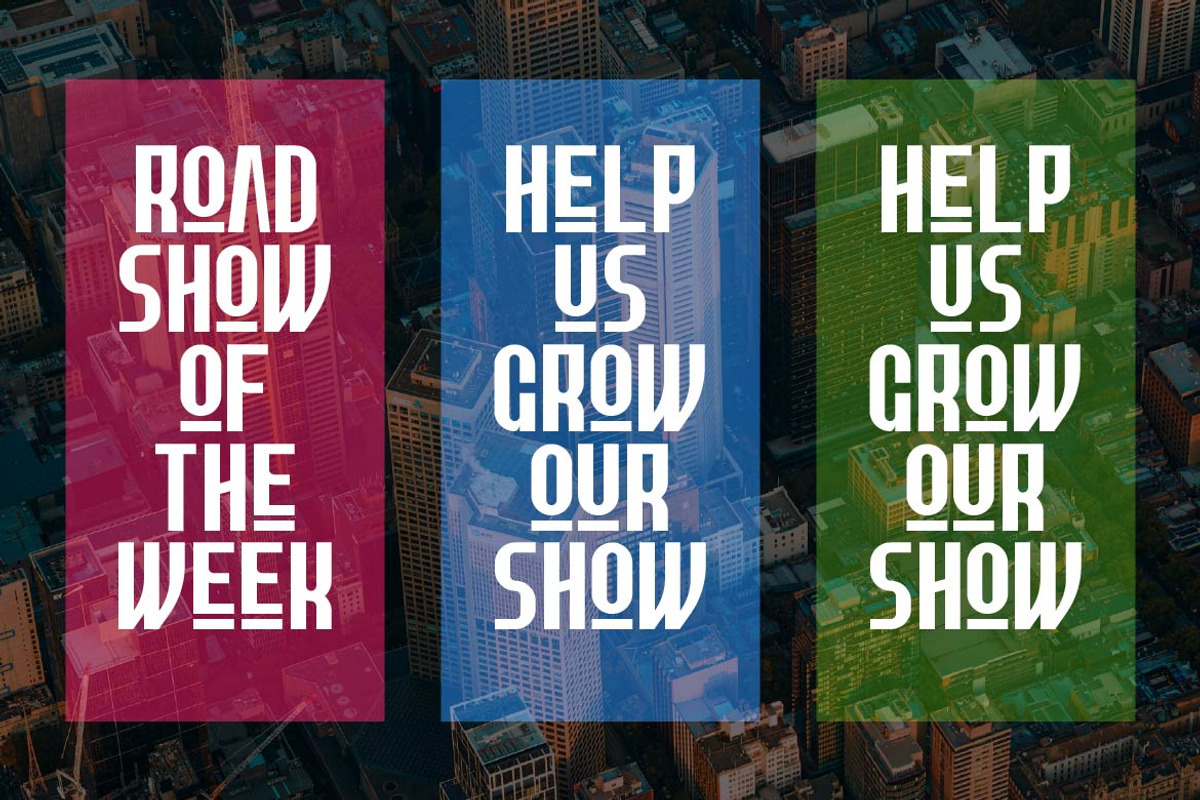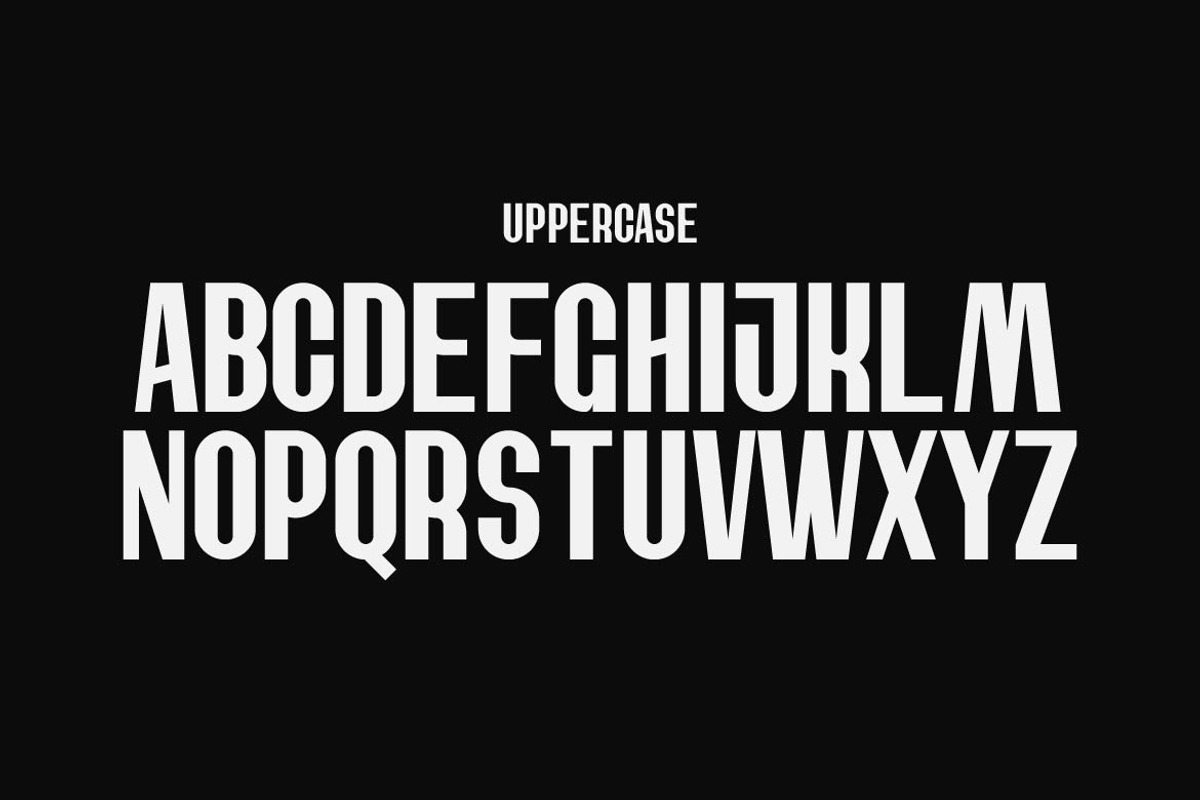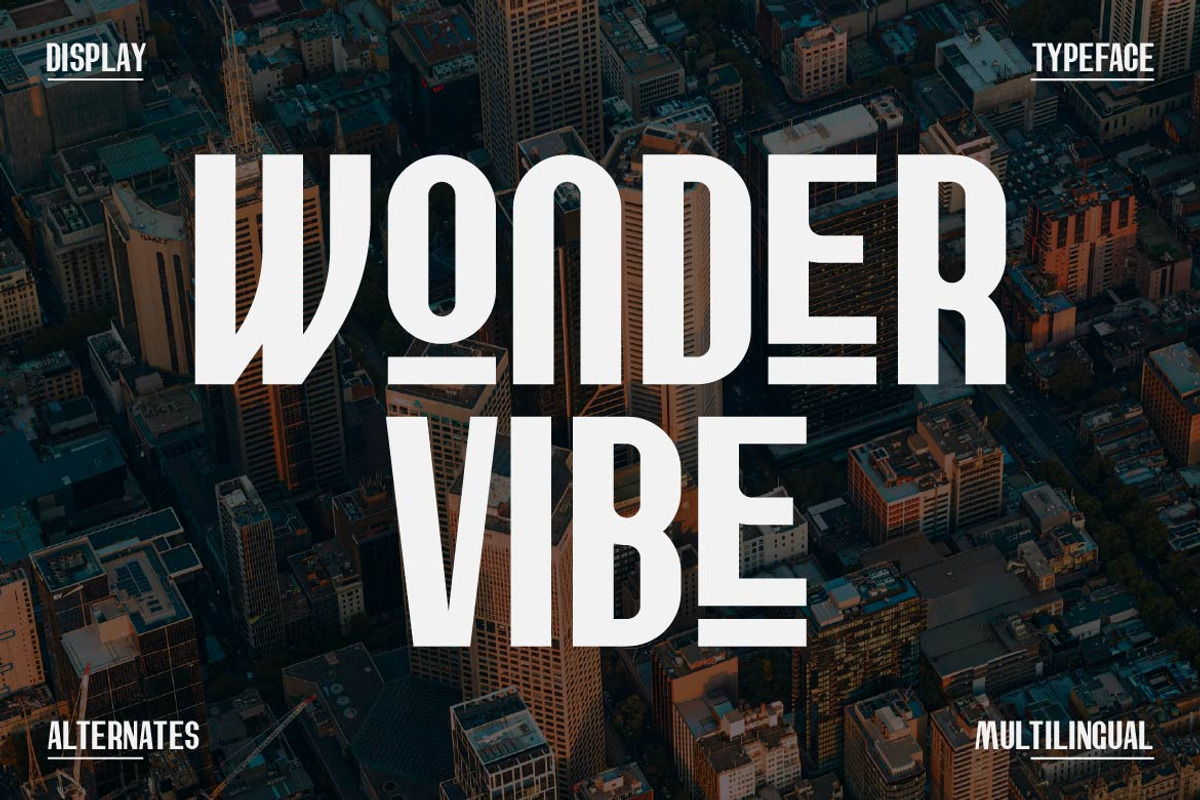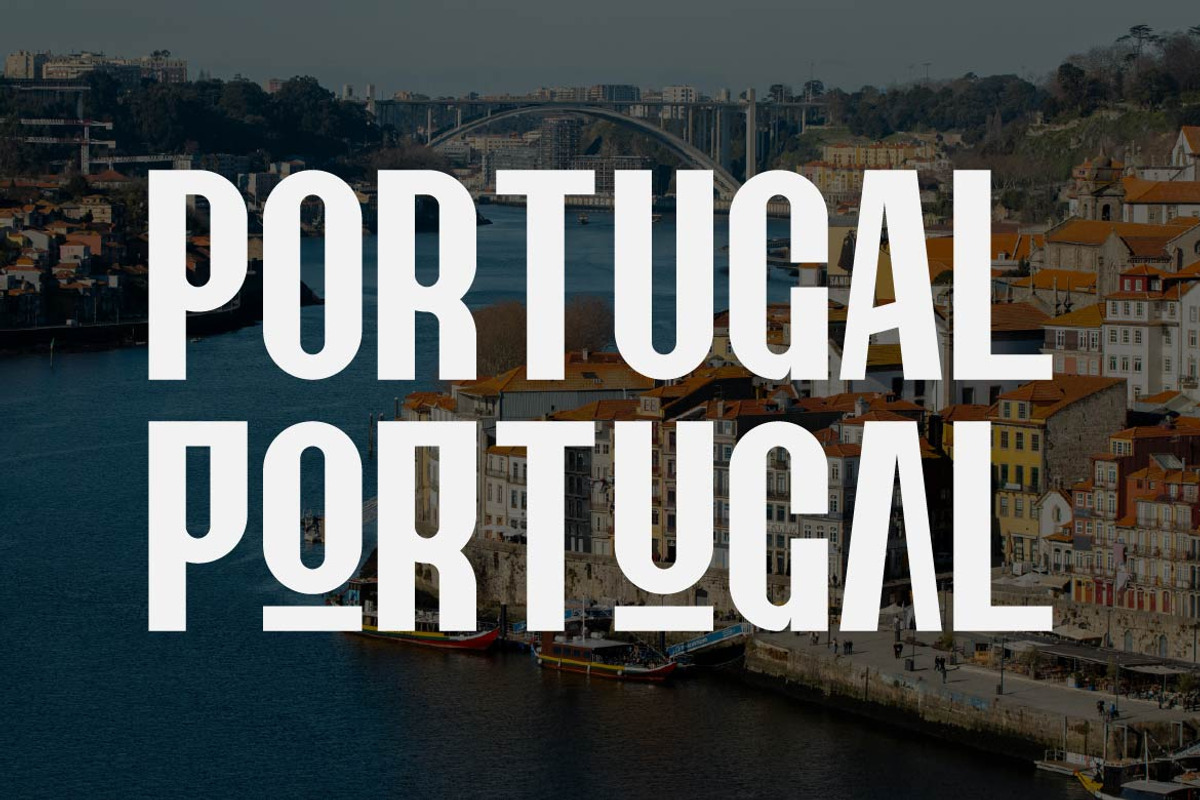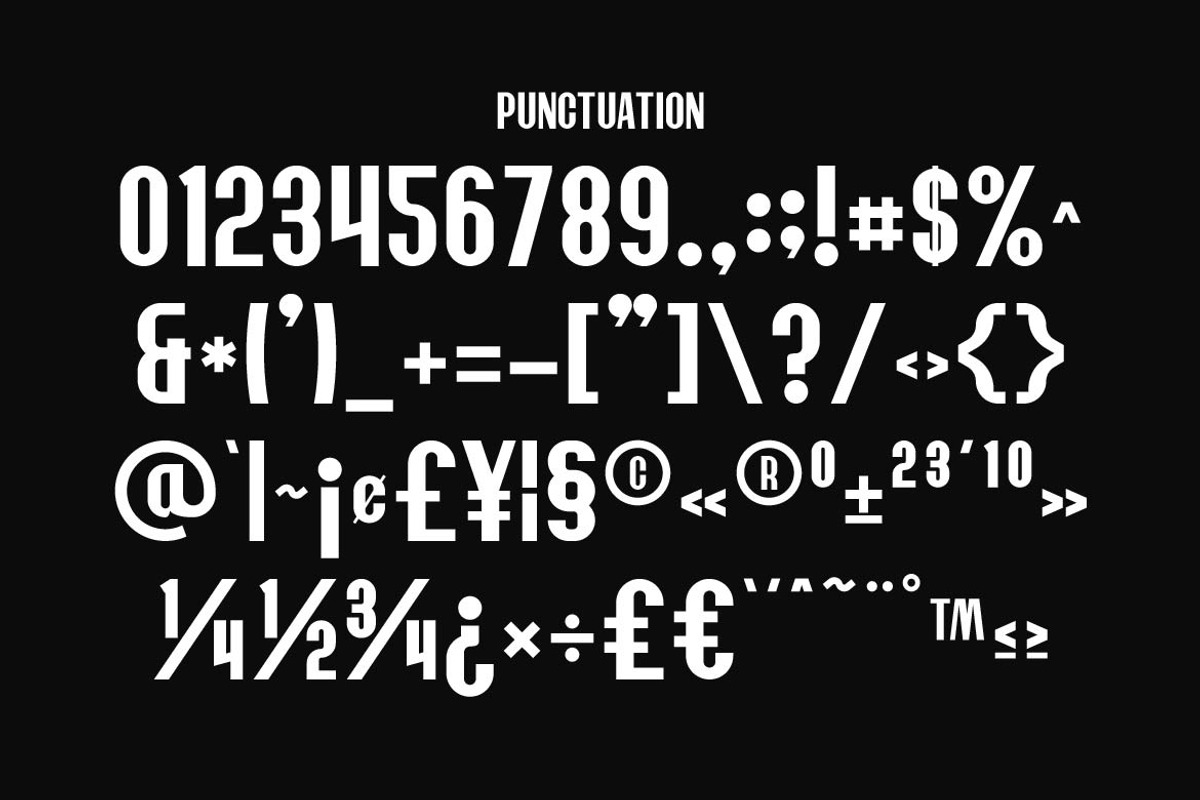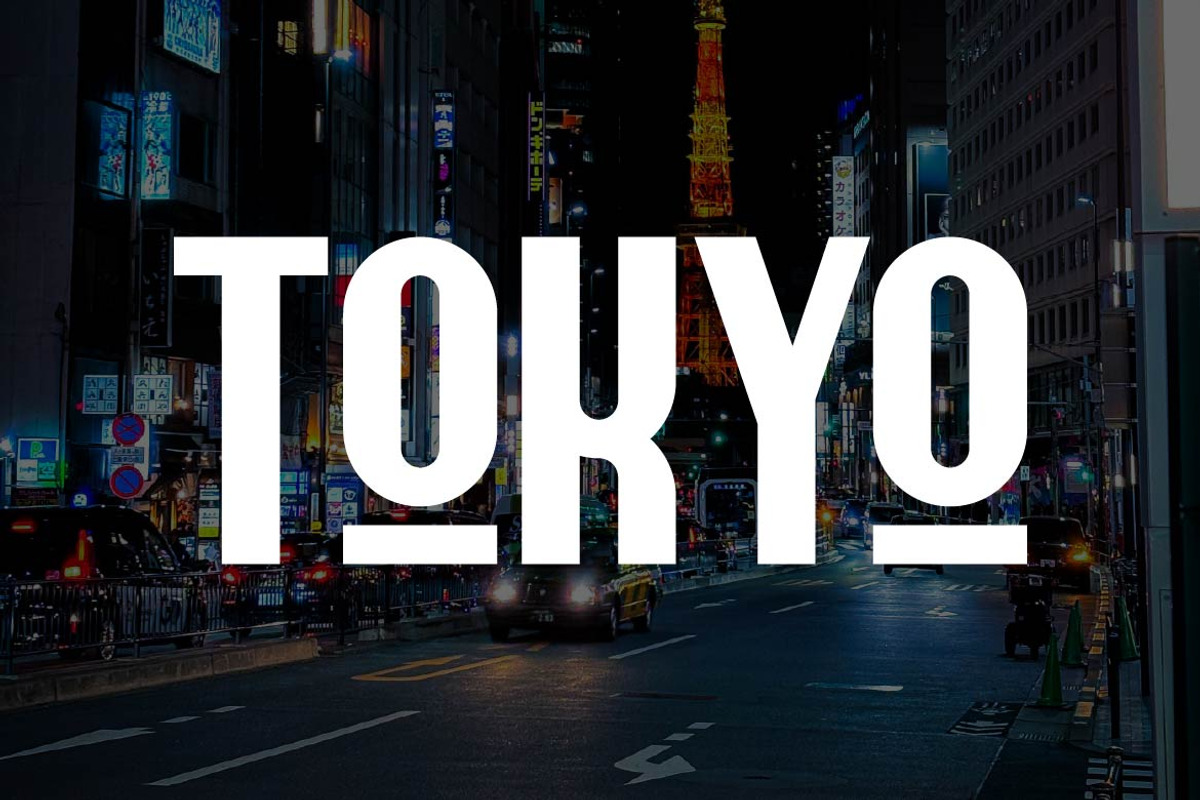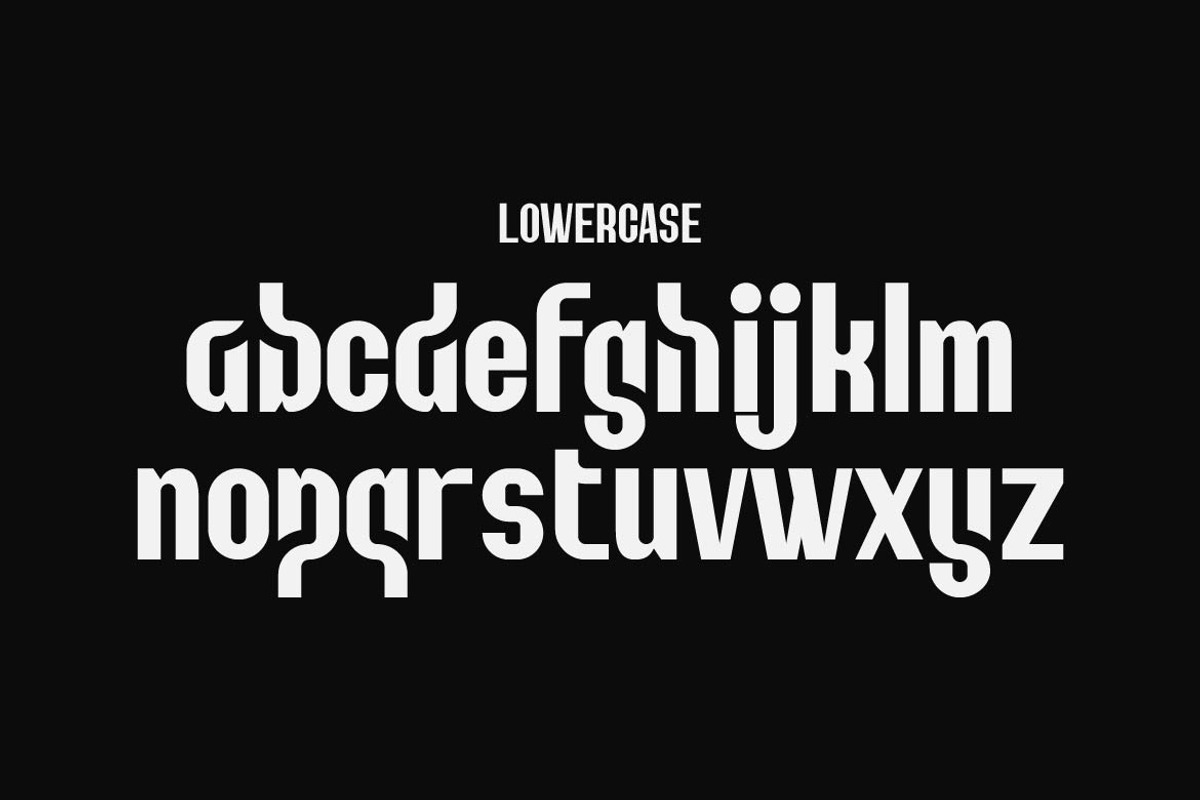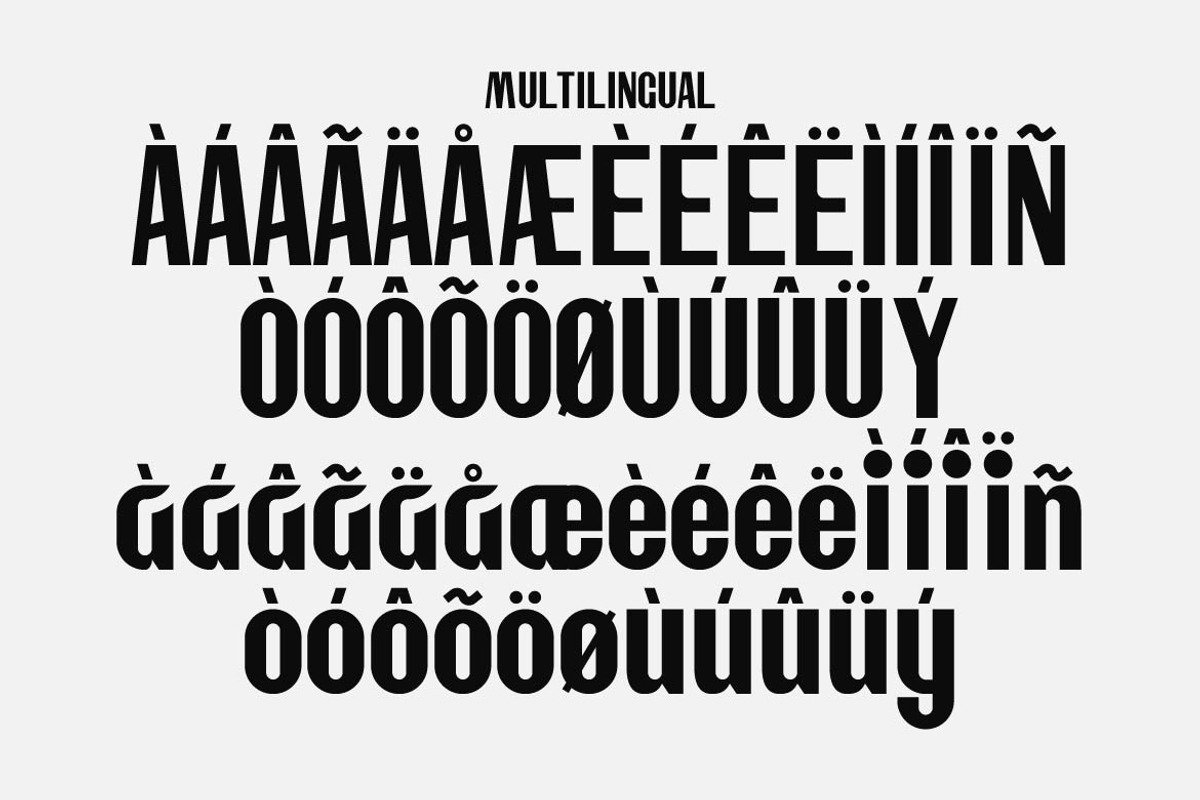
Wonder Vibe – Creative Display Sans
Wonder Vibe is a creative display sans serif typeface designed to bring energy, personality, and modern style into your visual projects. Featuring expressive letterforms, playful structure, and contemporary aesthetics, Wonder Vibe delivers a fresh and eye-catching typographic experience.
\- Ton of glyphs
\- Alternates